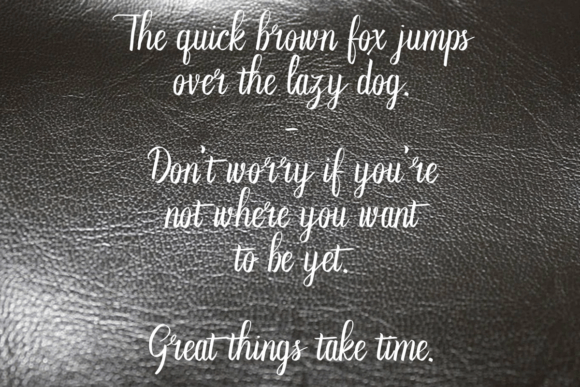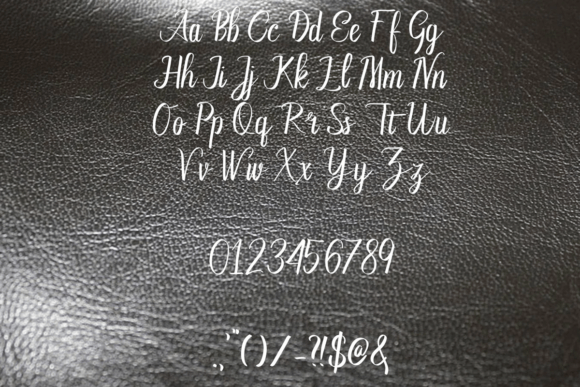
Introducing Beauchamps Font: Elevate Your Designs with Elegant Calligraphy
Are you a designer or crafter looking for a font that exudes elegance and sophistication? Look no further than Beauchamps Font, a stunning calligraphy font that will take your projects to the next level. With its flowing letters and luxurious feel, Beauchamps is perfect for creating beautiful invitations, greeting cards, and other special projects that demand attention to detail.
What is Beauchamps Font?
Beauchamps is a calligraphy font that mimics the look of handwriting with a fancy pen. Its elegant, cursive letters are carefully crafted to give your designs a personal touch that’s both stylish and refined. Whether you’re creating wedding invitations, birthday cards, or social media graphics, Beauchamps Font is the perfect choice for anyone who wants to add a touch of sophistication to their work.
Key Features of Beauchamps Font
- Elegant Calligraphy: Beauchamps Font features beautiful, flowing letters that are reminiscent of traditional calligraphy.
- Handwritten Look: The font’s irregularities and variations give it a handmade feel that’s perfect for creating unique and personalized designs.
- Highly Versatile: Beauchamps Font can be used for a wide range of projects, from invitations and greeting cards to social media graphics and branding materials.
Uses for Beauchamps Font
Beauchamps Font is perfect for designers and crafters who want to create beautiful, high-end designs. Here are some ideas to get you started:
- Wedding Invitations: Use Beauchamps Font to create stunning wedding invitations that set the tone for a luxurious and memorable event.
- Greeting Cards: Add a touch of elegance to your greeting cards with Beauchamps Font, perfect for special occasions like birthdays, anniversaries, and holidays.
- Social Media Graphics: Elevate your social media graphics with Beauchamps Font, ideal for creating eye-catching posts and stories that showcase your brand’s personality.
- Branding Materials: Use Beauchamps Font to create luxurious branding materials, such as business cards, letterheads, and packaging.
Tips for Using Beauchamps Font
To get the most out of Beauchamps Font, here are some tips to keep in mind:
- Use it Sparingly: Beauchamps Font is best used sparingly, as its elegance and sophistication can be overwhelming if overused.
- Pair it with Simple Fonts: Pair Beauchamps Font with simple, clean fonts to create visual interest and balance in your designs.
- Experiment with Colors: Beauchamps Font looks stunning in a range of colors, from metallic gold and silver to rich jewel tones.
Beauchamps Font is a beautiful, elegant calligraphy font that’s perfect for designers and crafters who want to create stunning, high-end designs. With its flowing letters and luxurious feel, Beauchamps is ideal for creating invitations, greeting cards, and other special projects that demand attention to detail. Whether you’re a seasoned designer or a crafty DIY enthusiast, Beauchamps Font is sure to elevate your designs and take your work to the next level.